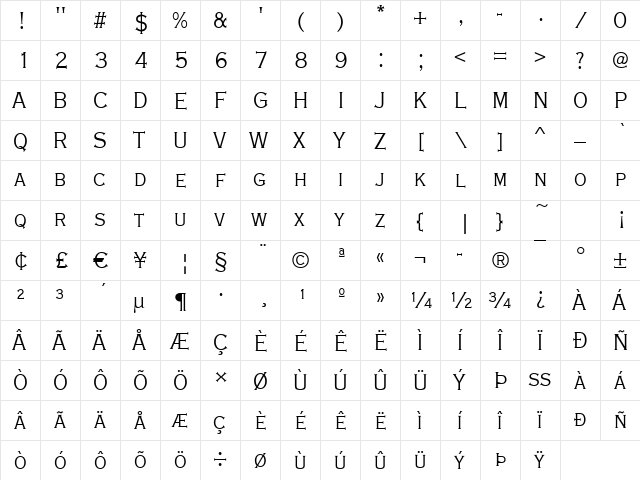
Copperplate-Cd-Light Regular
Copperplate-Cd-Light is a composed and adaptable typeface that performs quietly and consistently across a wide range of design contexts. Its slender proportions lend an understated elegance to any composition.